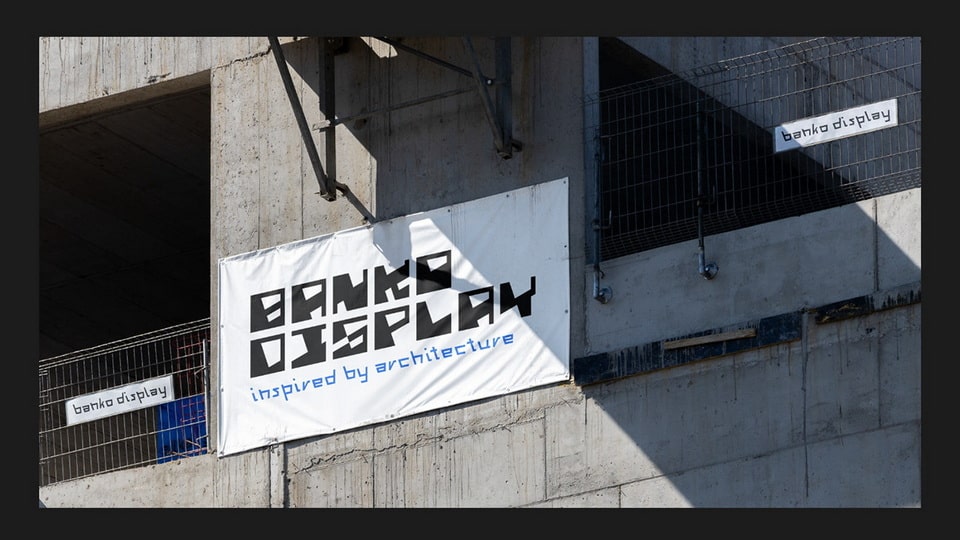
Download Banko Display font, a blocky, monospaced display typeface that draws inspiration from the clean lines and geometric precision of architectural blueprints. Banko Display font is all about creating designs that resonate with the principles of form and function.